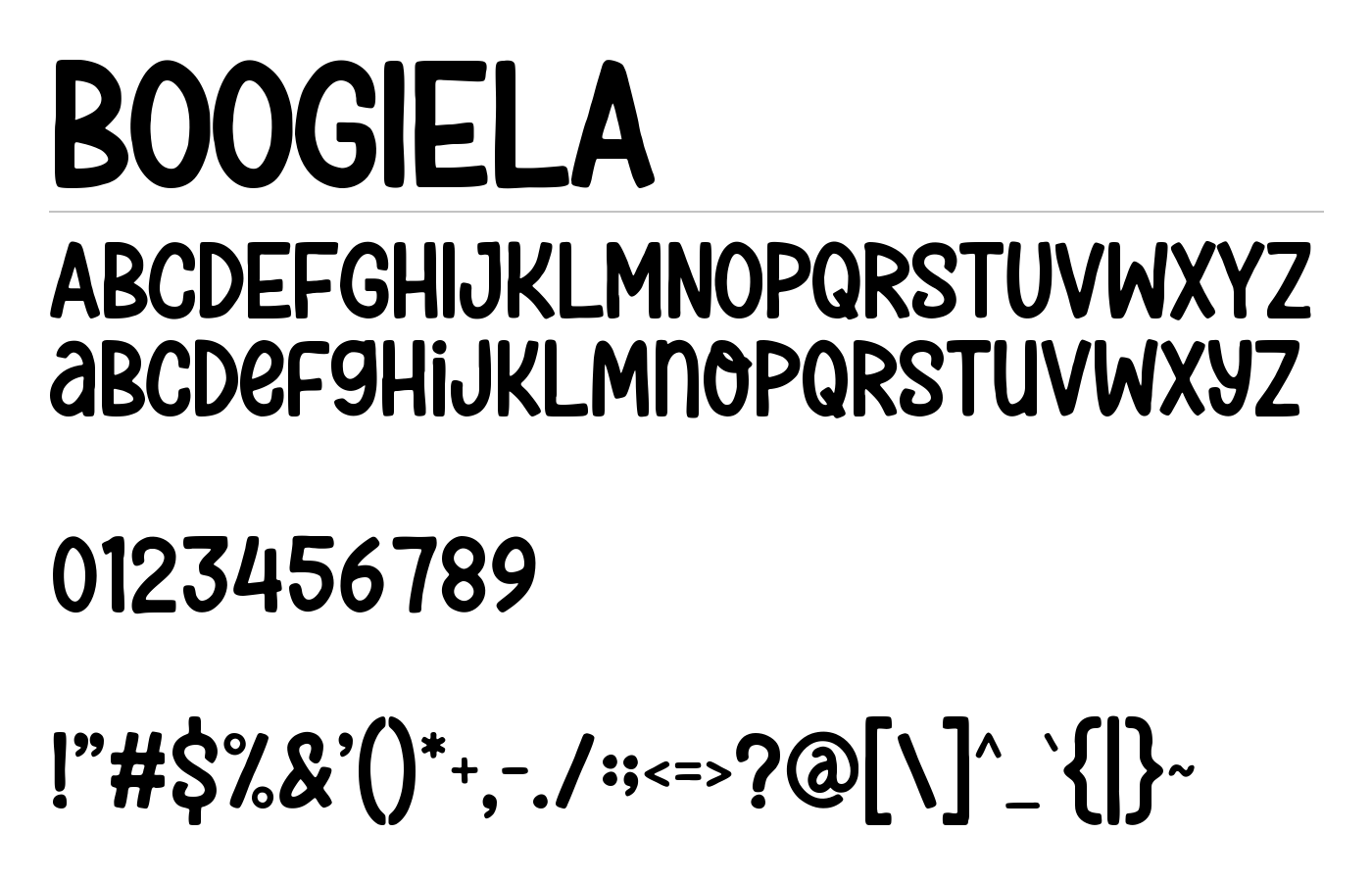
Boogiela is a playful, hand-drawn sans serif font with a casual and friendly vibe. Its slightly irregular strokes and rounded edges give it a warm, approachable feel, making it ideal for brands and projects seeking a fun, informal touch. This font works best in headlines, kids’ products, posters, and creative packaging where personality and a relaxed style are desired.
BOOGIELA Font
About BOOGIELA Font